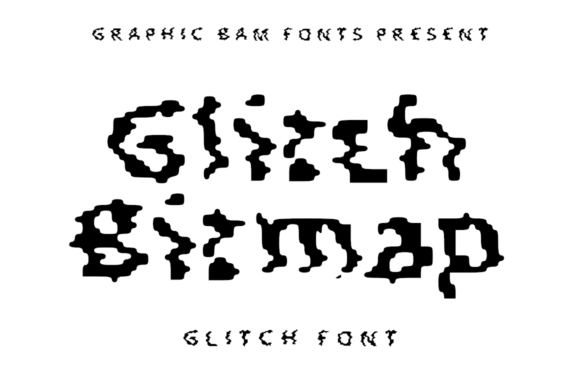
Introducing Glitch Bitmap Font: The Ultimate Display Typeface for Glitch Art Lovers
Are you a fan of glitch art, web design, or just love the aesthetic of distorted typography? Look no further than the Glitch Bitmap Font! This cool display typeface is perfect for designers, crafters, and anyone looking to add a touch of edginess to their projects. In this article, we’ll dive into the world of Glitch Bitmap, exploring its features, uses, and why it’s a must-have for any creative looking to make a statement.
The Birth of Glitch Bitmap
Glitch Bitmap is a carefully crafted font that embodies the spirit of glitch art – a style that celebrates the beauty of digital errors and distortions. Its unique, distorted feel makes it an instant standout, perfect for grabbing attention and adding a touch of personality to your designs. Whether you’re working on a web project, creating a logo, or designing a poster, Glitch Bitmap is sure to make a lasting impression.
Key Features of Glitch Bitmap Font
- Uppercase and Lowercase Versions: Glitch Bitmap comes in both uppercase and lowercase versions, offering versatility and flexibility for your design projects.
- Distorted Aesthetic: The font’s intentionally distorted design gives it a unique, glitchy feel that’s perfect for those who love the unconventional.
- Easy to Use: Glitch Bitmap is straightforward to integrate into your projects, making it accessible for designers of all skill levels.
Who is Glitch Bitmap Font For?
Glitch Bitmap is ideal for a wide range of creatives, including:
- Graphic Designers: Looking for a unique font to add a glitchy touch to their designs.
- Web Designers: Seeking to create a website with a distinctive, tech-inspired aesthetic.
- Glitch Art Enthusiasts: Anyone who appreciates the beauty of digital distortions and errors.
- Crafters and Makers: Incorporating typography into their handmade projects or digital creations.
Using Glitch Bitmap in Your Projects
Tips for Maximizing Glitch Bitmap’s Impact
- Experiment with Sizes: Glitch Bitmap looks great in various sizes, from large headings to smaller body text.
- Combine with Other Fonts: Pair Glitch Bitmap with a clean, sans-serif font for a striking contrast.
- Play with Colors: Take advantage of the font’s distorted aesthetic by using bold, contrasting colors.
Glitch Bitmap Font is more than just a typeface – it’s a statement piece for your designs. Its unique blend of distortion and style makes it an essential tool for anyone looking to add a touch of glitchy chic to their projects. Whether you’re a seasoned designer or just starting out, Glitch Bitmap is sure to inspire and elevate your creative work. So why wait? Download Glitch Bitmap today and discover a world of distorted typography and limitless creative possibilities!
- Is Glitch Bitmap suitable for body text?
- While Glitch Bitmap is primarily designed as a display font, it can be used for short body text passages for added visual interest.